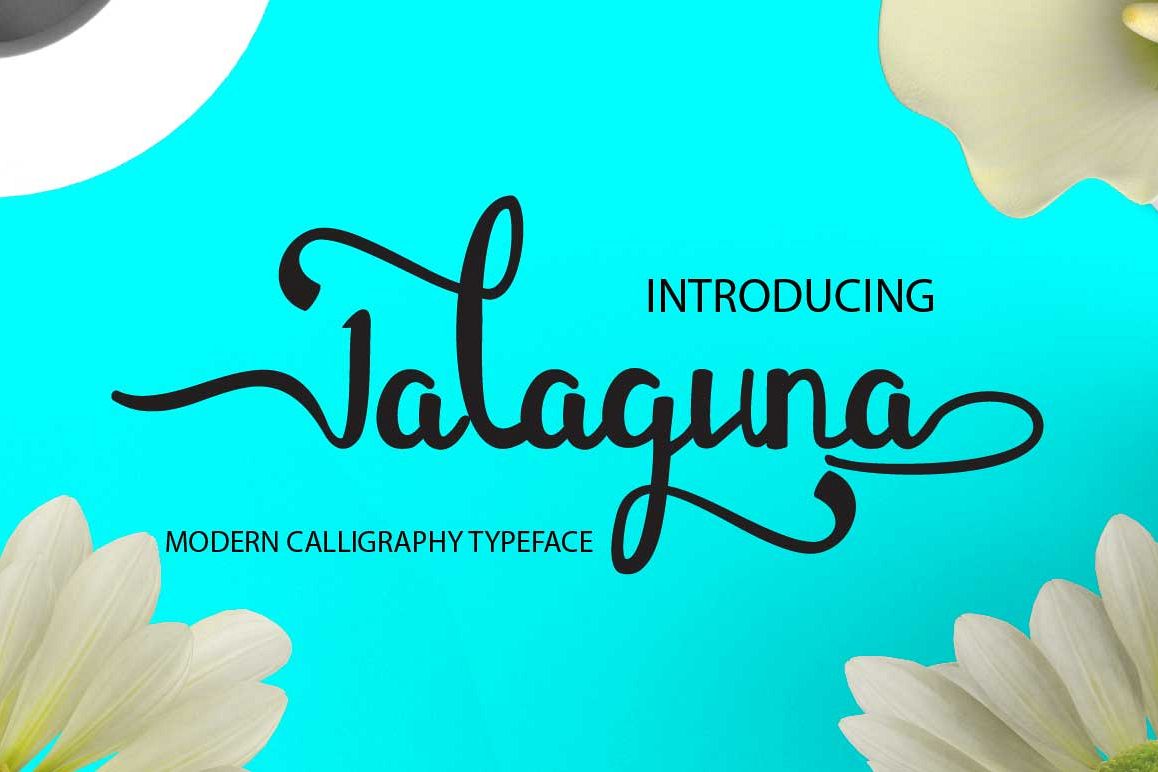
Jalaguna
Jalaguna Script is a stylish calligraphy font that features a varying baseline, smooth line, classic and elegant touch. Can be used for various purposes.such as headings, signature, logos, wedding invitation, t-shirt, letterhead, signage, lable, news, posters, badges etc.
The Features of this fonts is:
* Stylistic Alternates
* Swash